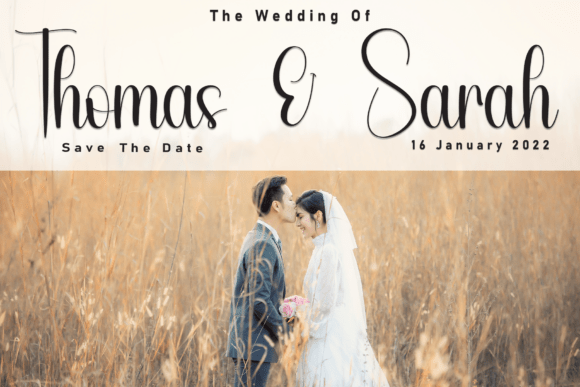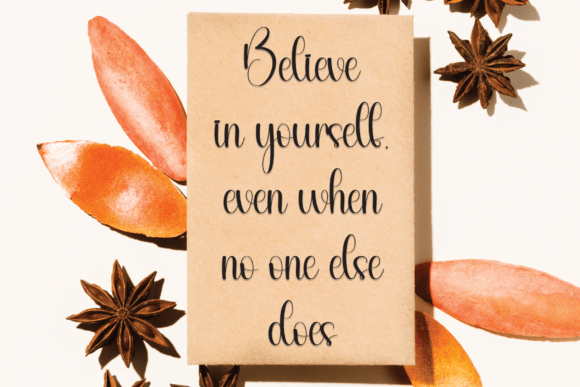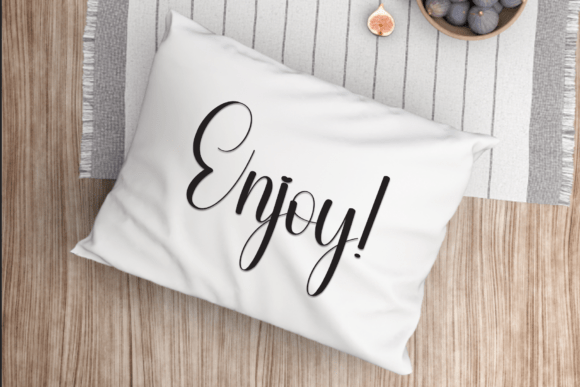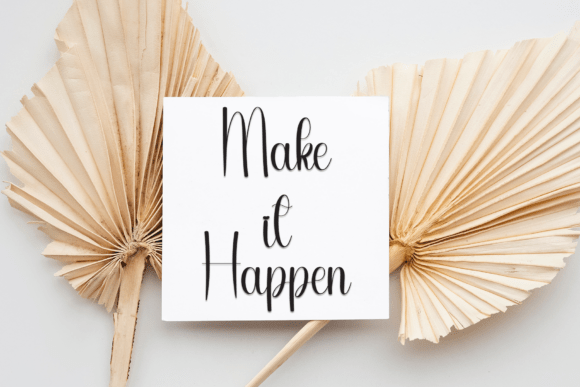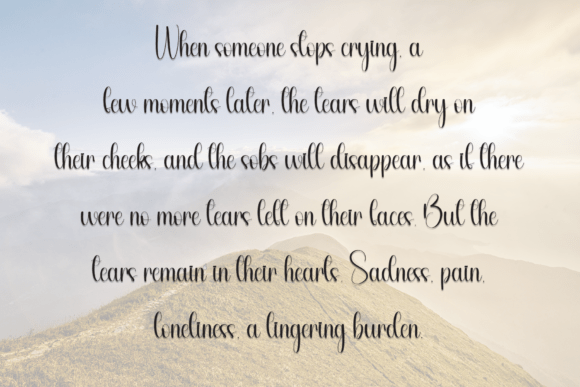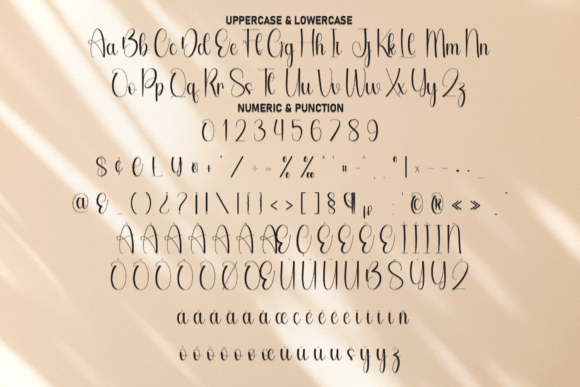
Unleash Your Creativity with the Grinch Font
Have you ever been in the midst of working on a design project, only to find yourself stuck on one thing: the perfect font? I recall a particularly frustrating experience while designing a wedding invitation for a friend. The tone was supposed to be whimsical and joyful, but no matter which font I chose, it just didn’t feel right. That was until I stumbled upon the Grinch Font – a game-changer for any creative looking to infuse their projects with personality and flair.
A Personal Review of the Grinch Font
- ✨ Unique and Handcrafted Design: The Grinch Font is meticulously hand-designed, offering a fresh and original look that sets it apart from more generic fonts.
- ✅ Emotional Connection: This font has a way of conveying emotion and excitement, making it perfect for projects where you want to evoke a certain feeling or atmosphere.
- 🎉 Versatility: Whether you’re working on wedding invites, greeting cards, or any other artistic project, the Grinch Font adapts beautifully, offering endless possibilities for creative expression.
While the Grinch Font is incredibly versatile and charming, there are a few things to keep in mind:
- ⚠️ Legibility at Small Sizes: Like many script fonts, the Grinch Font can become a bit tricky to read at very small sizes. It’s best used at larger sizes where its details can truly shine.
- 🤔 Pairing with Other Fonts: Due to its distinctive style, it may require some experimentation to find the right font pairing for your project. However, this is also an opportunity to get creative with your design!
The Inspiration Behind the Grinch Font
The Grinch Font was inspired by a desire to create a typeface that embodies joy, exhilaration, and a touch of whimsy. Its designer sought to craft a font that not only stands out but also brings a sense of personality and emotion to any project it’s used in. The result is a font that’s both arresting and endearing, perfect for creatives looking to push the boundaries of artistic expression.
| Font Name | Grinch Font |
| Is the Grinch Font suitable for body text? | While the Grinch Font is stunning, it’s primarily designed for display purposes. For body text, consider using a more legible font to ensure readability. |
| Does the Grinch Font support OpenType features? | Yes, the Grinch Font supports OpenType features, including glyphs and stylistic alternates, allowing for a high degree of customization and creativity in your designs. |
| Is the Grinch Font available in different weights or styles? | The availability of different weights or styles depends on the specific version of the Grinch Font. Some versions may offer variations, while others may be a single-weight font. |
Embracing the Grinch Font in your design projects can be a transformative experience, offering a fresh perspective and a burst of creativity. Whether you’re a seasoned designer or a hobbyist, this font has the potential to elevate your work and leave a lasting impression on your audience.